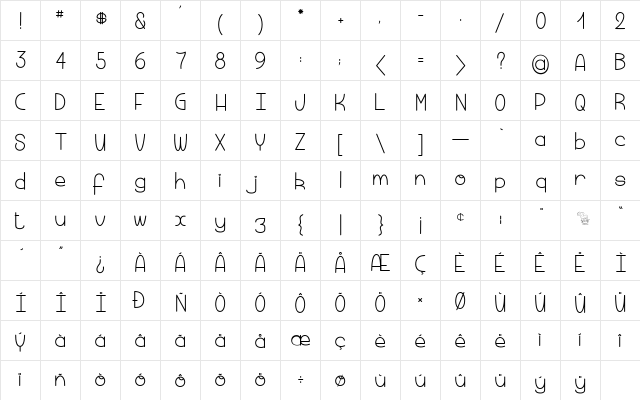
Macaroni & Cheese 2 Regular
Design Context for Macaroni & Cheese 2 Typeface
Macaroni & Cheese 2 is a composed and adaptable typeface that performs quietly and consistently across a wide range of design contexts.